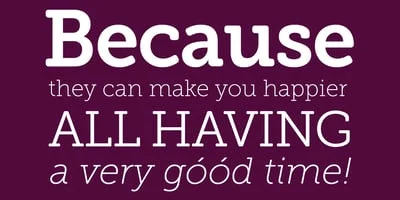
Museo Slab Rounded Font
Museo Slab Rounded Font is perfect for museum exhibitions, cultural institution branding, educational materials, gallery signage, academic publications, heritage projects, library systems, cultural event posters, historical documentaries, and any projects that require scholarly elegance with approachable warmth.
What makes Museo Slab Rounded Font exciting is its sophisticated fusion of academic authority with friendly accessibility through refined slab serifs softened by gentle rounded corners. This distinguished typeface combines the scholarly gravitas of traditional slab serif design with contemporary warmth, creating letterforms that command respect while remaining inviting and readable. The font's institutional character makes it perfect for cultural organizations seeking to bridge the gap between academic excellence and public engagement.
Museo Slab Rounded Font family includes comprehensive scholarly weights featuring thin, light, regular, medium, bold, and black options. The font family also offers italic versions with enhanced readability, along with condensed and extended variants optimized for different exhibition and publication requirements. Special features include old style numerals, small caps, and extensive multilingual support for international cultural applications.
Elevate cultural communication with Museo Slab Rounded Font and transform educational content into engaging experiences that inspire learning and discovery. This premium typeface delivers exceptional performance across museum displays, academic publications, and digital platforms, ensuring your cultural message reaches audiences with both authority and accessibility. Download Museo Slab Rounded Font today and discover typography that honors tradition while embracing progress, creating meaningful connections between knowledge and community in our modern cultural landscape.